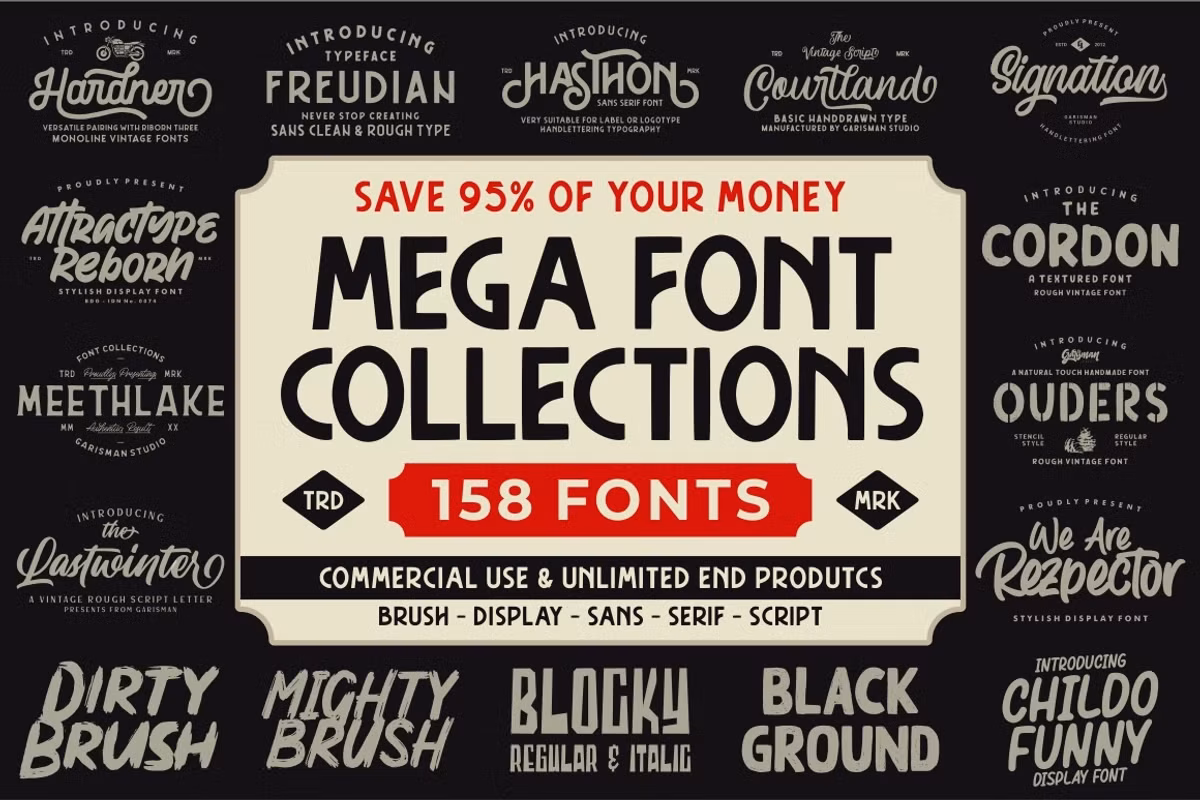
Unlock a treasure trove of creative possibilities with The MEGA FONT COLLECTIONS 2021 Free Download. This massive bundle includes a variety of high-quality fonts—ranging from elegant scripts to modern serifs, bold sans serifs, and artistic display fonts. Perfect for graphic designers, branding experts, and creatives working on a variety of projects such as logos, websites, social media, packaging, and more.
The collection features a wide range of styles, weights, and character sets, including uppercase and lowercase letters, numerals, punctuation, multilingual support, and stylistic alternates—giving you everything you need to experiment with different design concepts.